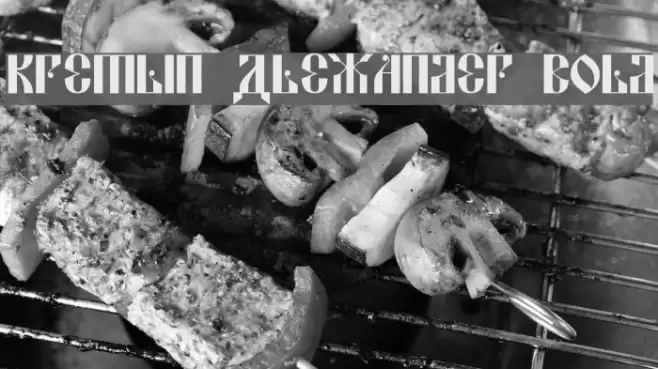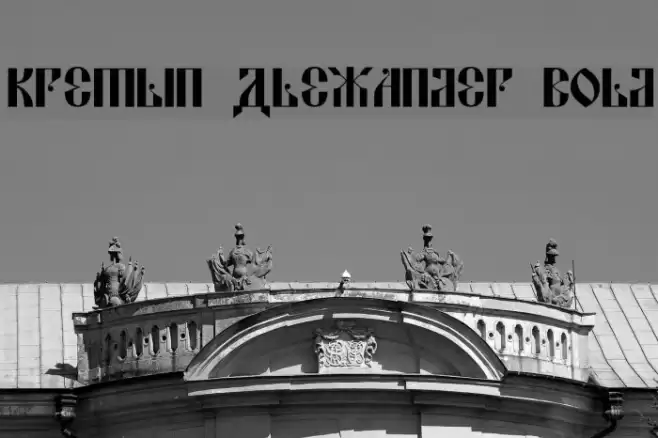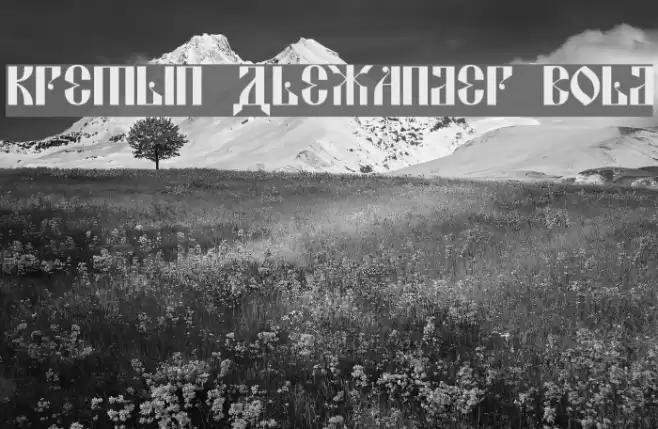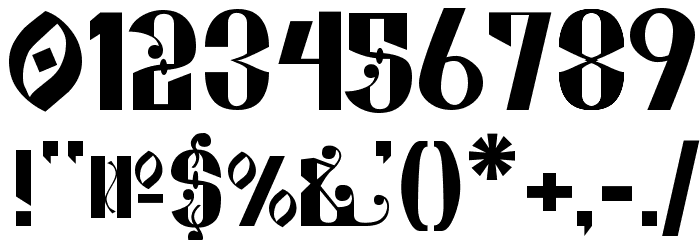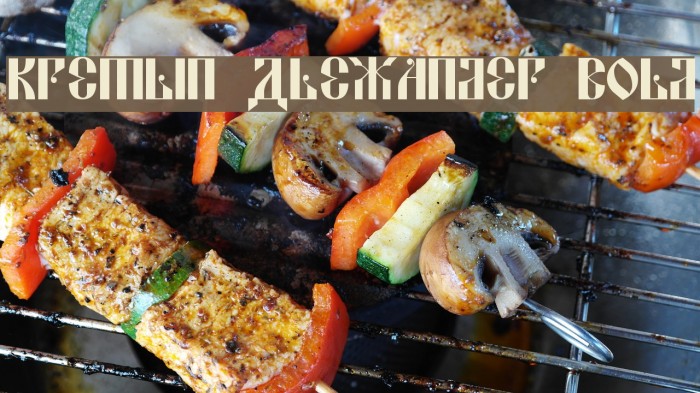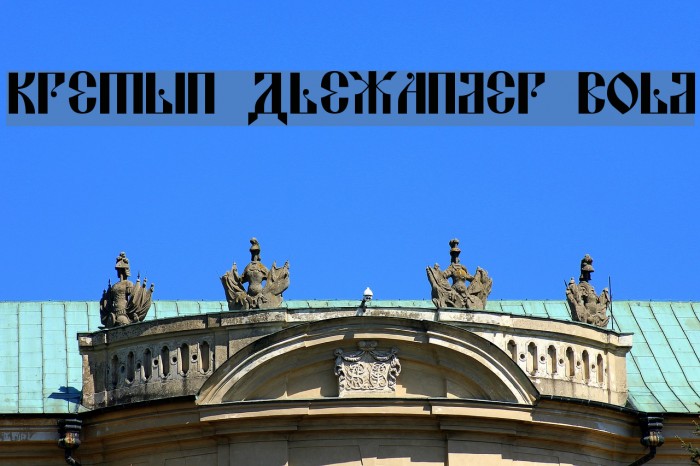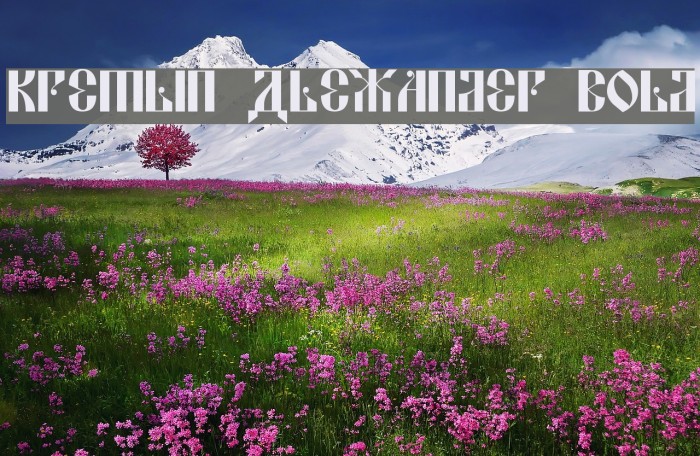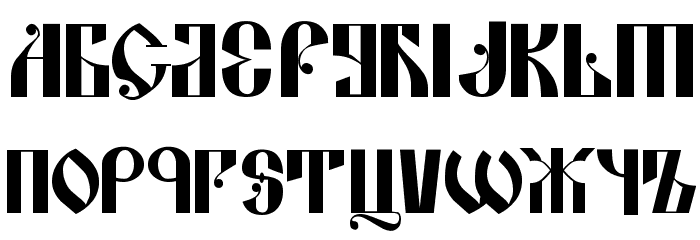
Kremlin Alexander Bold Font
Kremlin Alexander Bold Description
This font features a bold and decorative style with intricate details and flourishes. The characters are designed with a high contrast between thick and thin strokes, giving them a dramatic and eye-catching appearance. The uppercase and lowercase letters maintain a consistent style, with unique embellishments that add a touch of elegance and sophistication. The numbers and special characters are equally ornate, making this font suitable for projects that require a strong visual impact.
A bold, decorative font with high contrast and intricate flourishes from Uncategorized fonts.
- Proposed Projects: Ideal for use in branding, posters, headlines, and any project that requires a striking and artistic typeface.